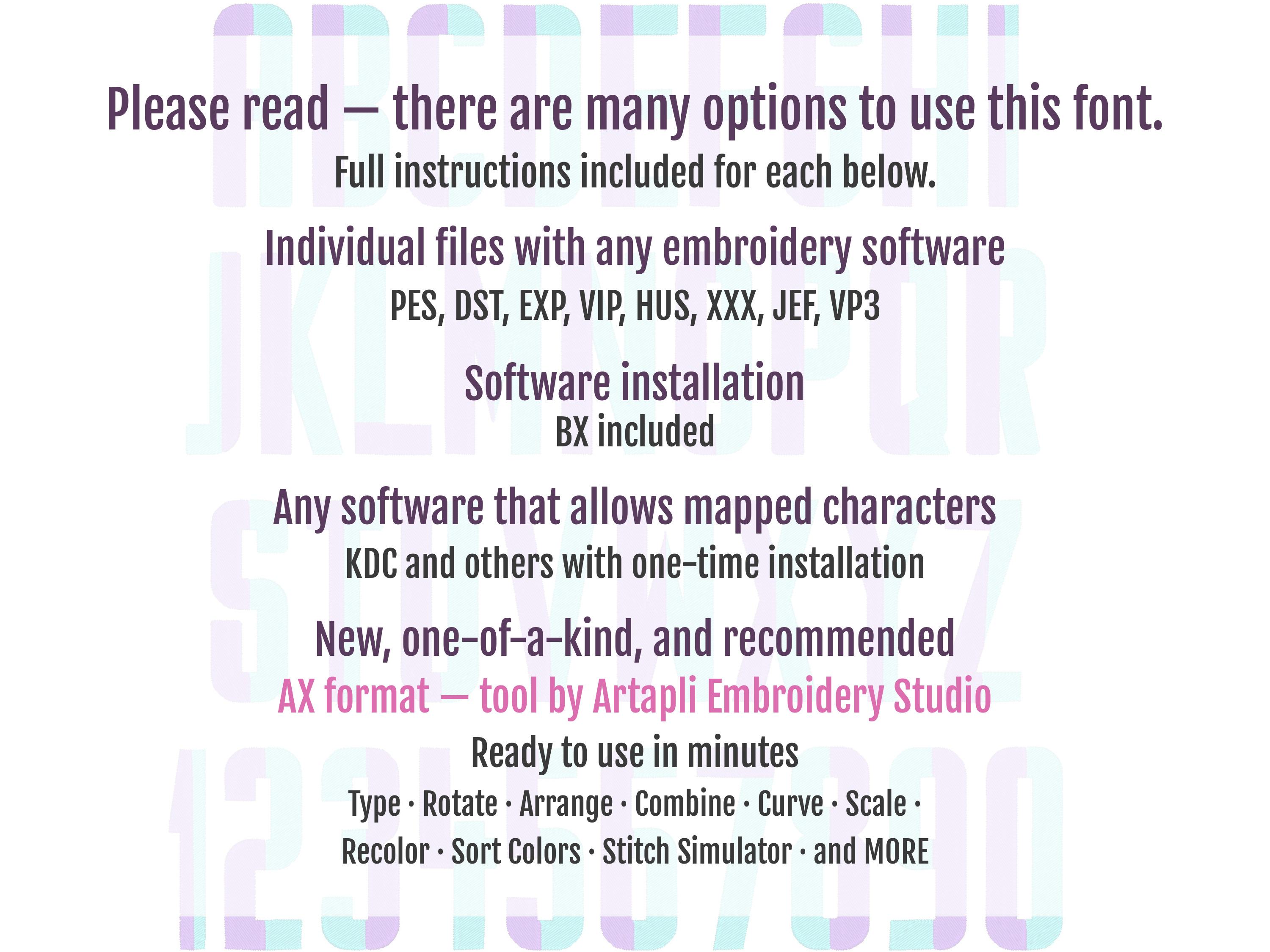
Duo font narrow split fill stitch 2 color Font Duo color Duotone alphabet machine embroidery designs 1.5 to 5 two colors duotone duo color
Love this font. Stitched well